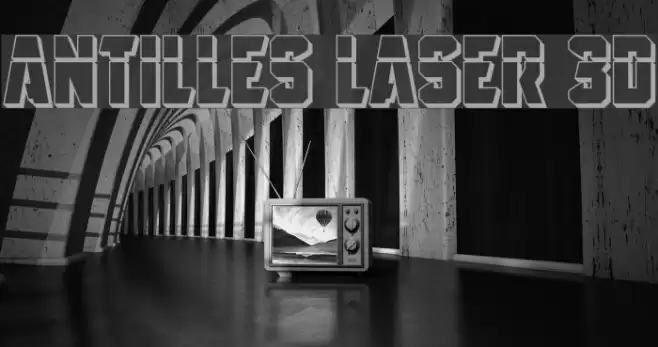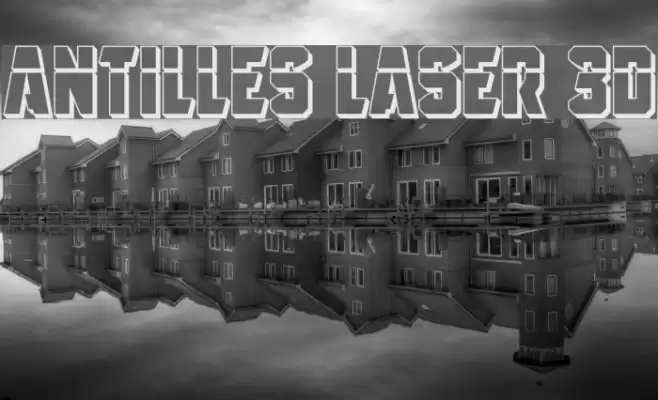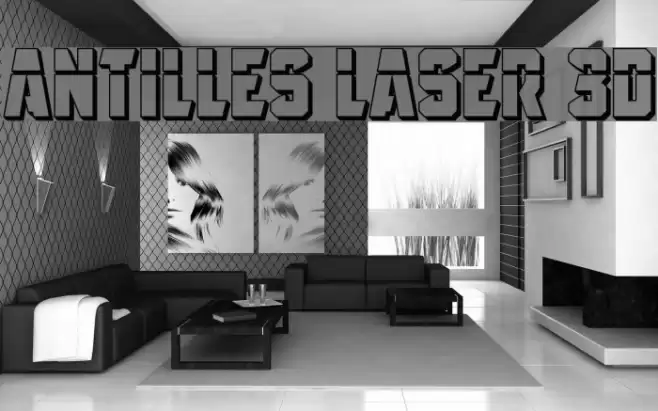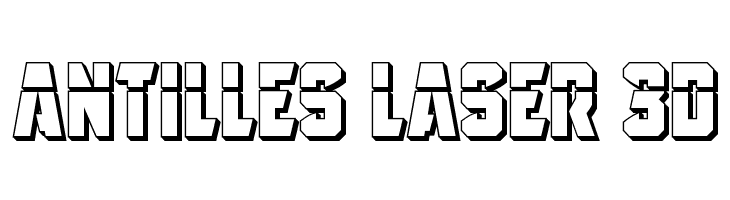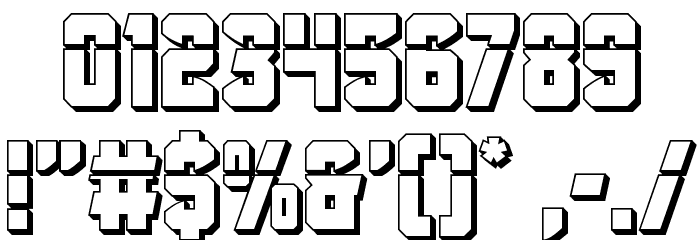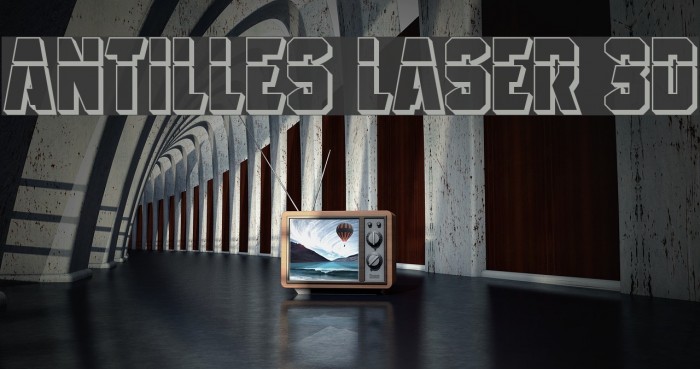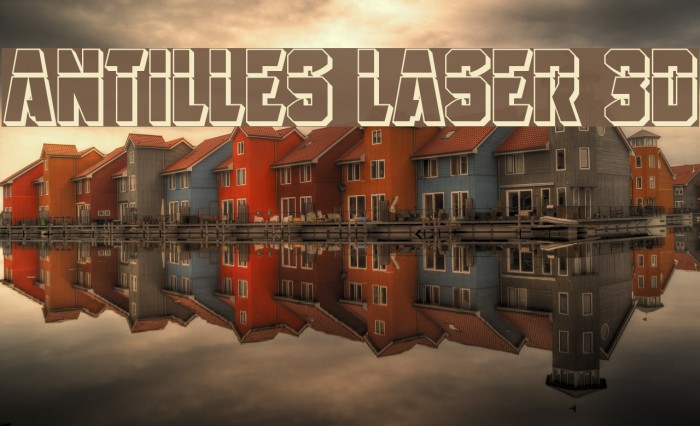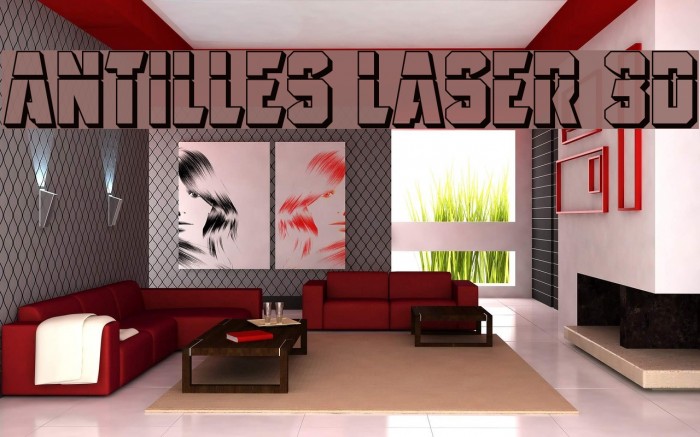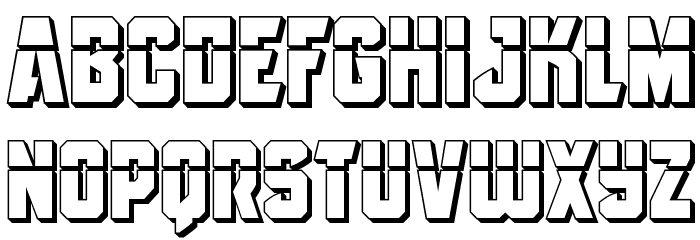
Antilles Laser 3D Font
Antilles Laser 3D Description
This font features a bold, three-dimensional design with a futuristic and industrial aesthetic. The characters are constructed with sharp, angular lines and a distinct shadow effect that gives them a laser-cut appearance. The uppercase letters are uniform in height and width, creating a cohesive and structured look. The numbers and special characters maintain the same stylistic elements, ensuring consistency across all glyphs. This font is highly decorative and makes a strong visual impact, suitable for projects that require a modern and edgy feel.
A bold, 3D futuristic font with sharp, angular lines and a laser-cut appearance from Sci-fi fonts.
- Proposed Projects: Ideal for sci-fi themed posters, video game titles, tech branding, and futuristic event flyers.